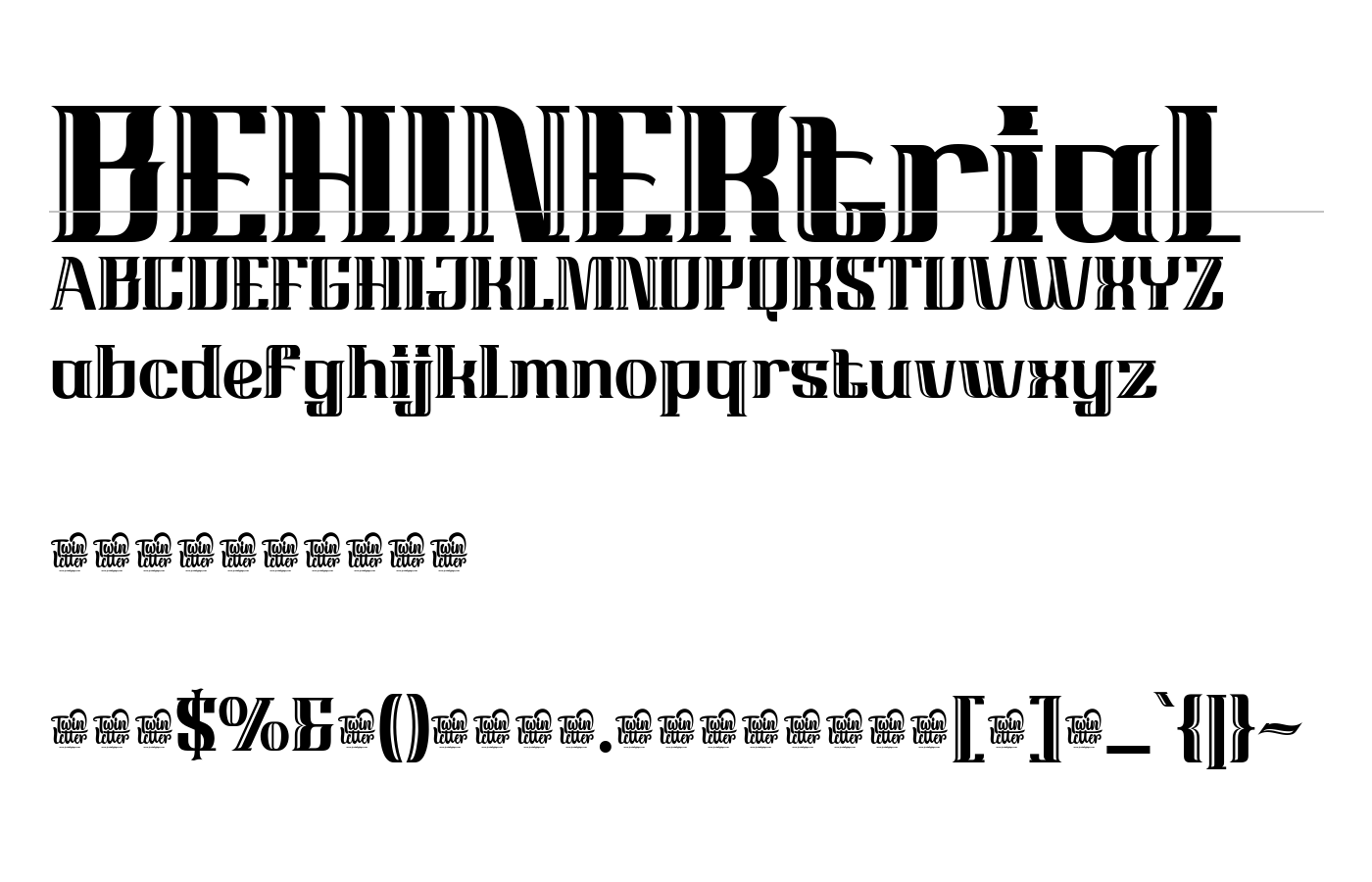
BEHINERtrial is a bold, condensed serif font with a high contrast between thick and thin strokes, featuring sharp, stylized serifs that give it a strong, dramatic presence. Its unique letterforms with narrow proportions and striking verticality create an elegant yet edgy look, making it ideal for eye-catching headlines, logos, and luxury branding where a vintage but modern flair is desired. This font works best in display settings where its distinctive character can stand out and add sophistication with a bold twist.
BEHINERtrial Font
About BEHINERtrial Font